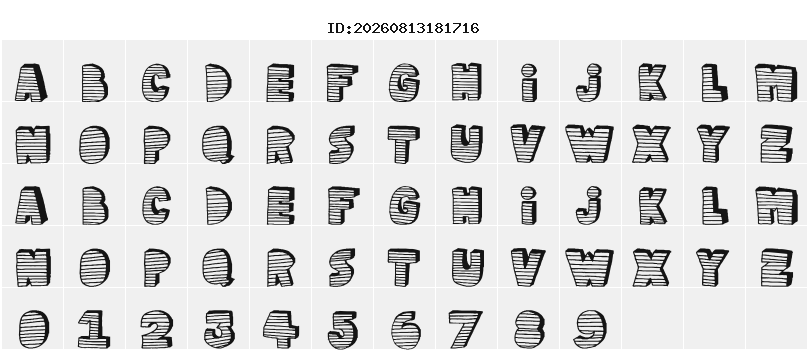
stripe3D Preview
• Font Name: stripe3D
• Full Font Name: stripe3D
• PostScript Name: stripe3D
About stripe3D.ttf
stripe3D.ttf is a modern, elegant sans-serif font designed for ultimate readability and visual harmony. Perfect for branding, headlines, web design, and print materials.